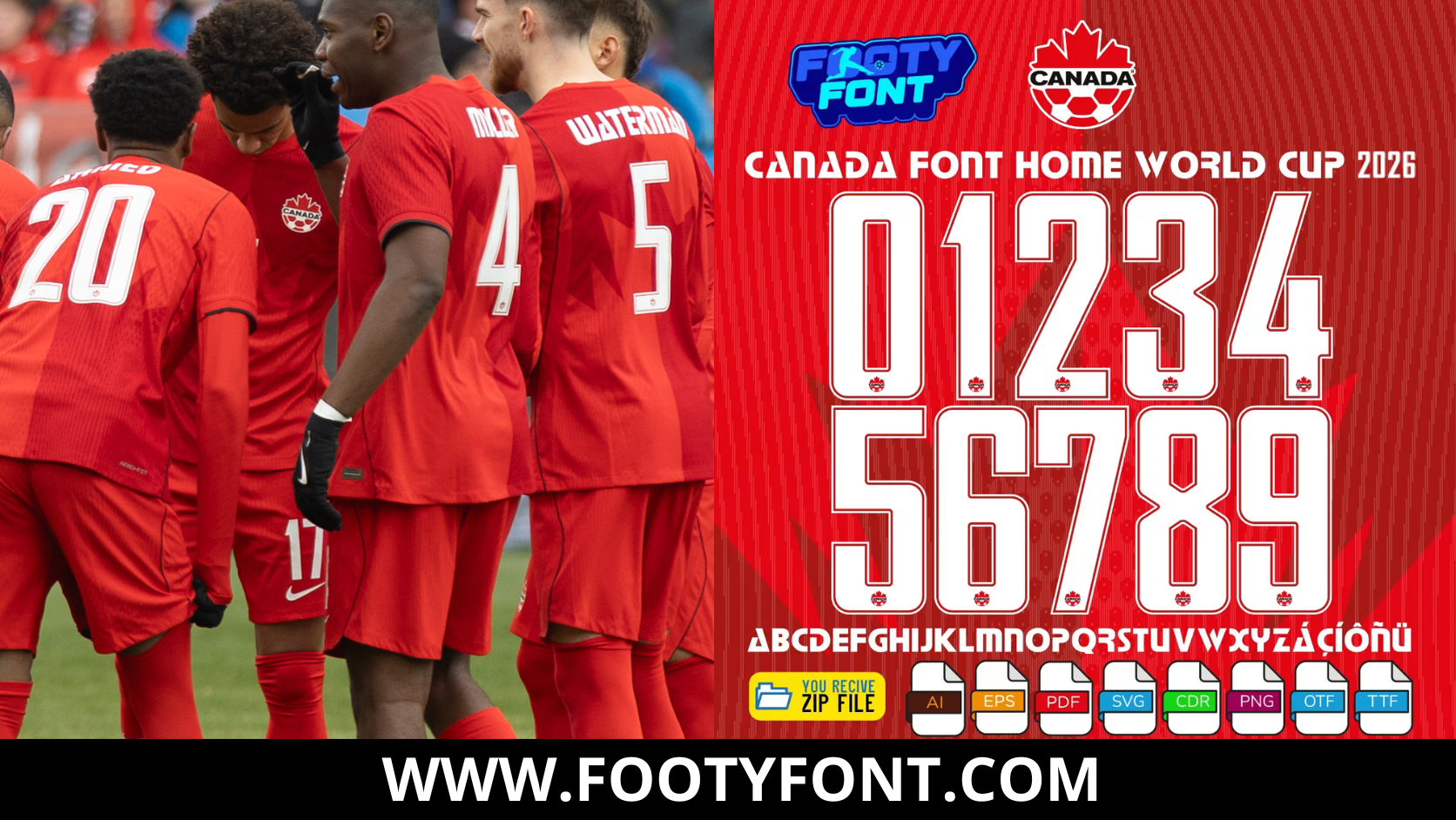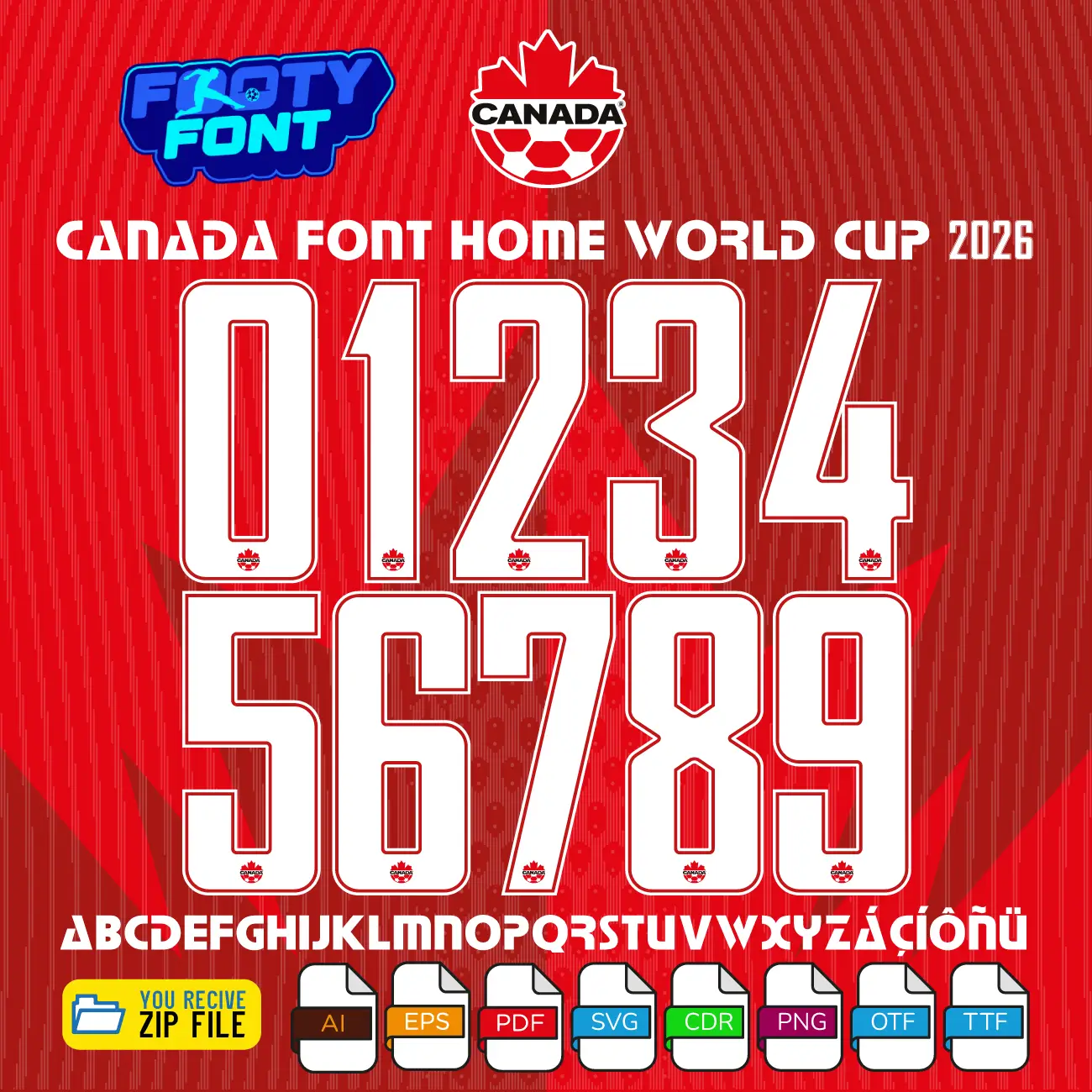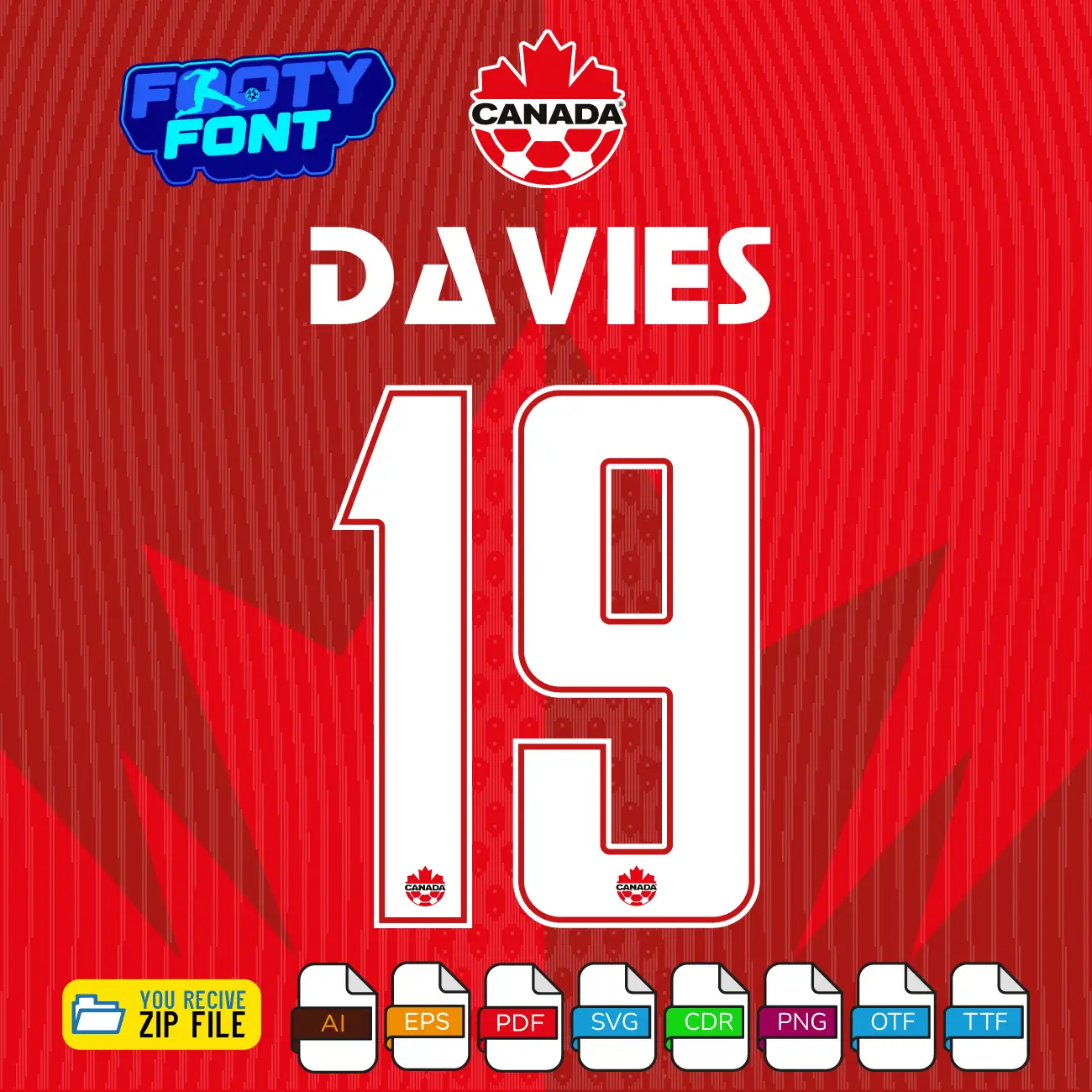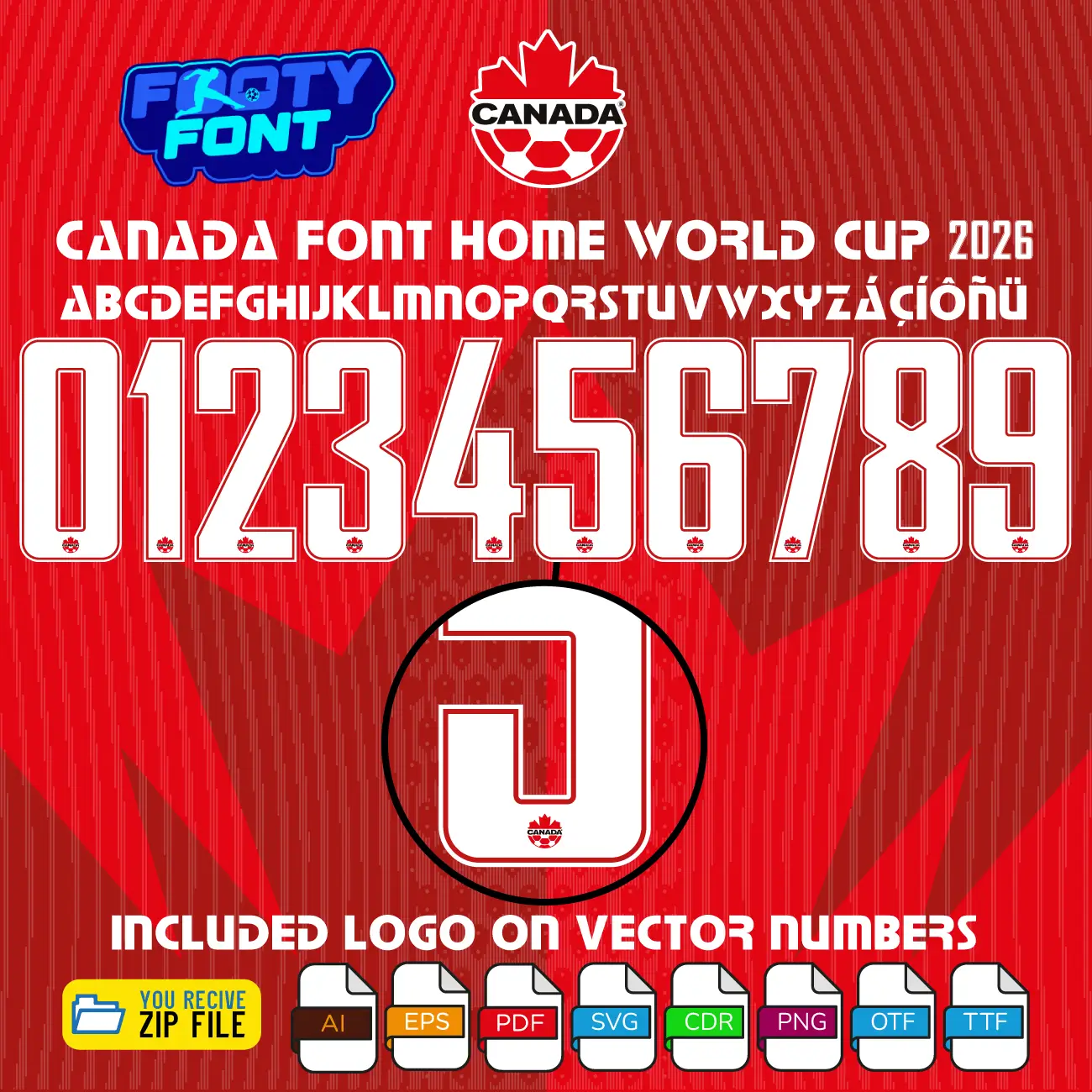
Canada 2026 Football Font
Get ready for the tournament on home soil with this font football, inspired by the Canada 2026 World Cup home kit. This high-quality typeface is meticulously designed to replicate the sharp, modern, and aggressive geometric lettering worn by the CanMNT. It features bold white numbers with a sleek red outline that perfectly complements their classic red home jerseys.
This font captures the dynamic style worn by Canada’s biggest football stars like Alphonso Davies, Jonathan David, and Tajon Buchanan. As Canada prepares to co-host the 2026 World Cup, this home font is an absolute must-have for fans creating custom jersey designs, digital art, tailgate graphics, or matchday posters that celebrate their national pride.
Composite image showing Canadian players wearing the red home jersey alongside the complete character set of the Canada Font World Cup 2026 Home.
A complete look at the Canada Font World Cup 2026 Home, featuring the full number set and a real-world match photo of the Canadian national team.
Canada Font World Cup 2026 Home showing the complete alphabet and sharp white numbers with red outlines.
Canada Font World Cup 2026 (Home Kit)